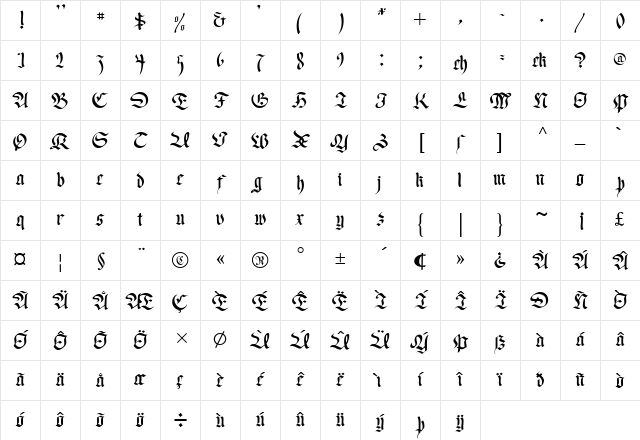
Faustus Regular Free Font
Faustus Regular
Design Context for Faustus
Faustus is a composed and adaptable typeface that performs quietly and consistently across a wide range of design contexts.